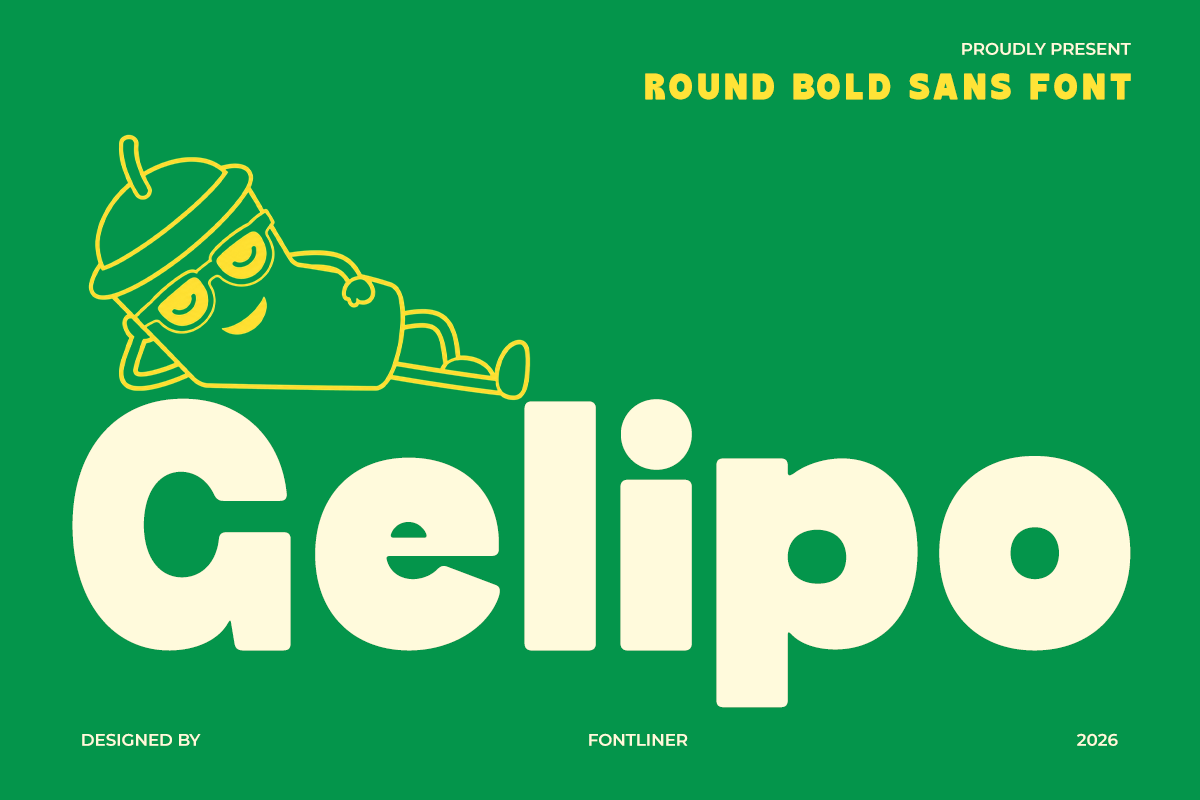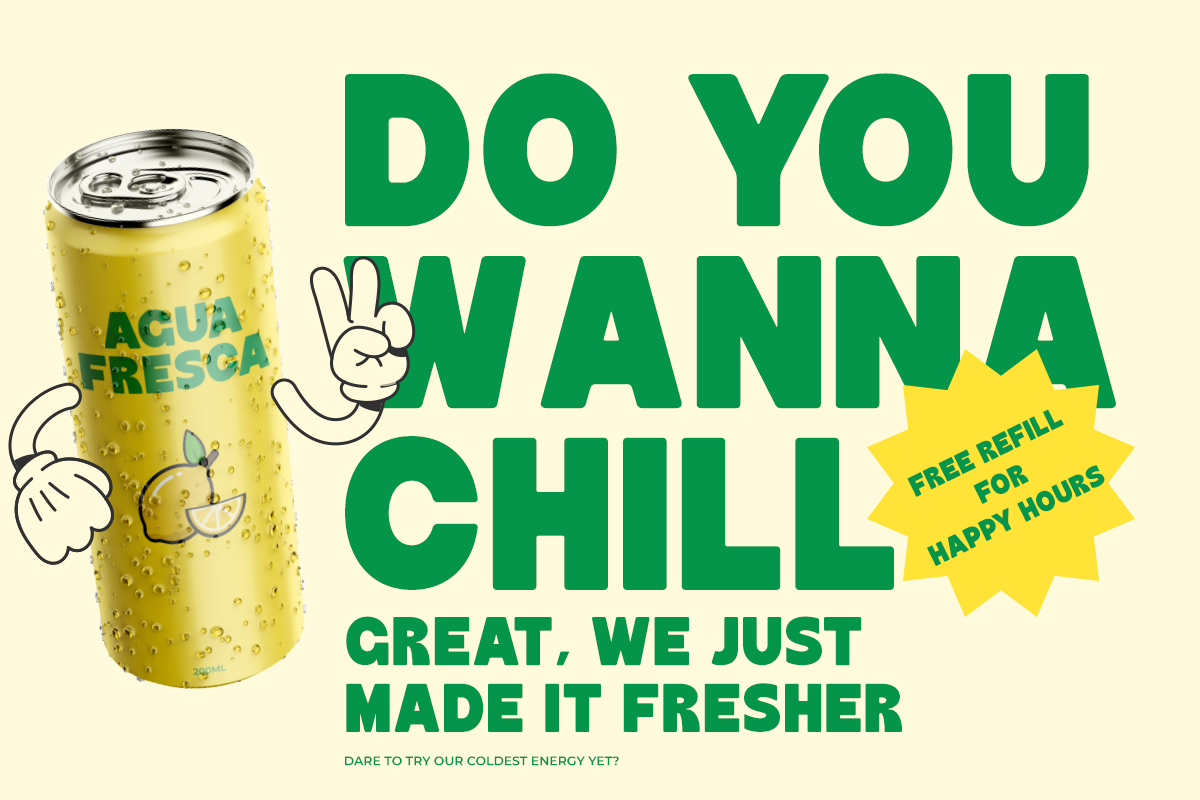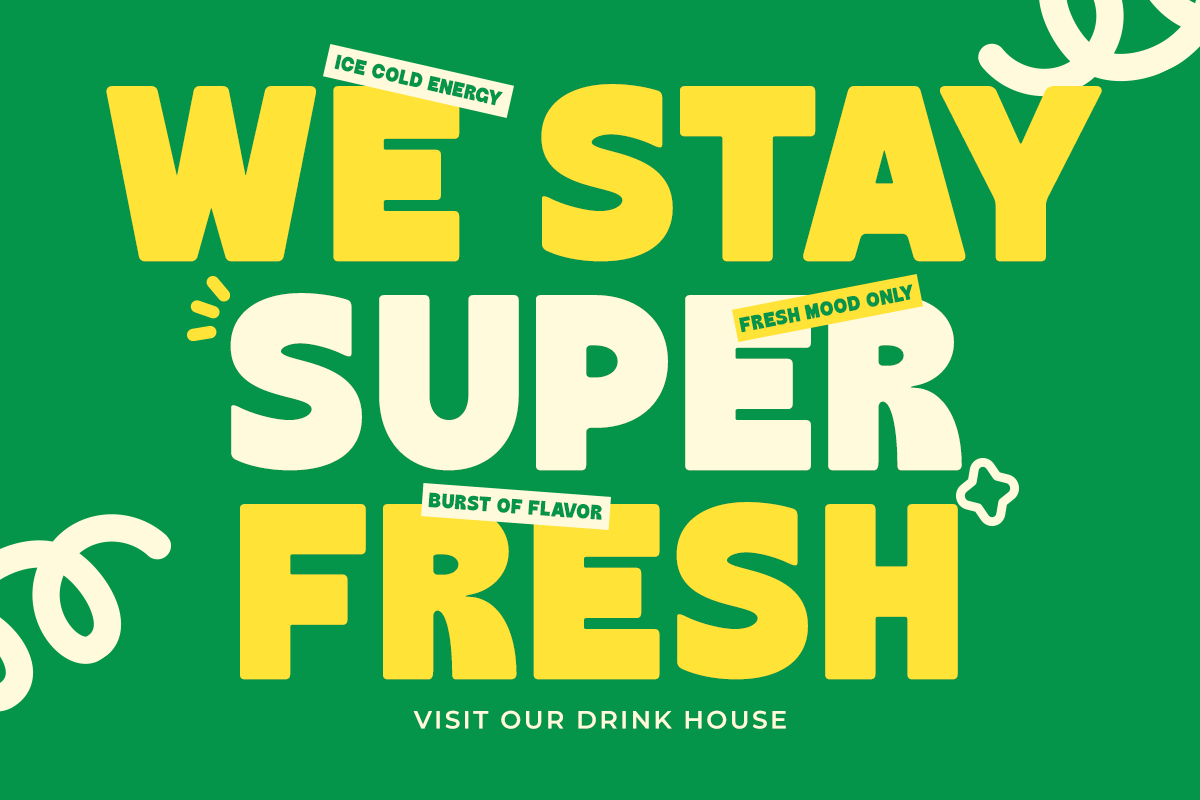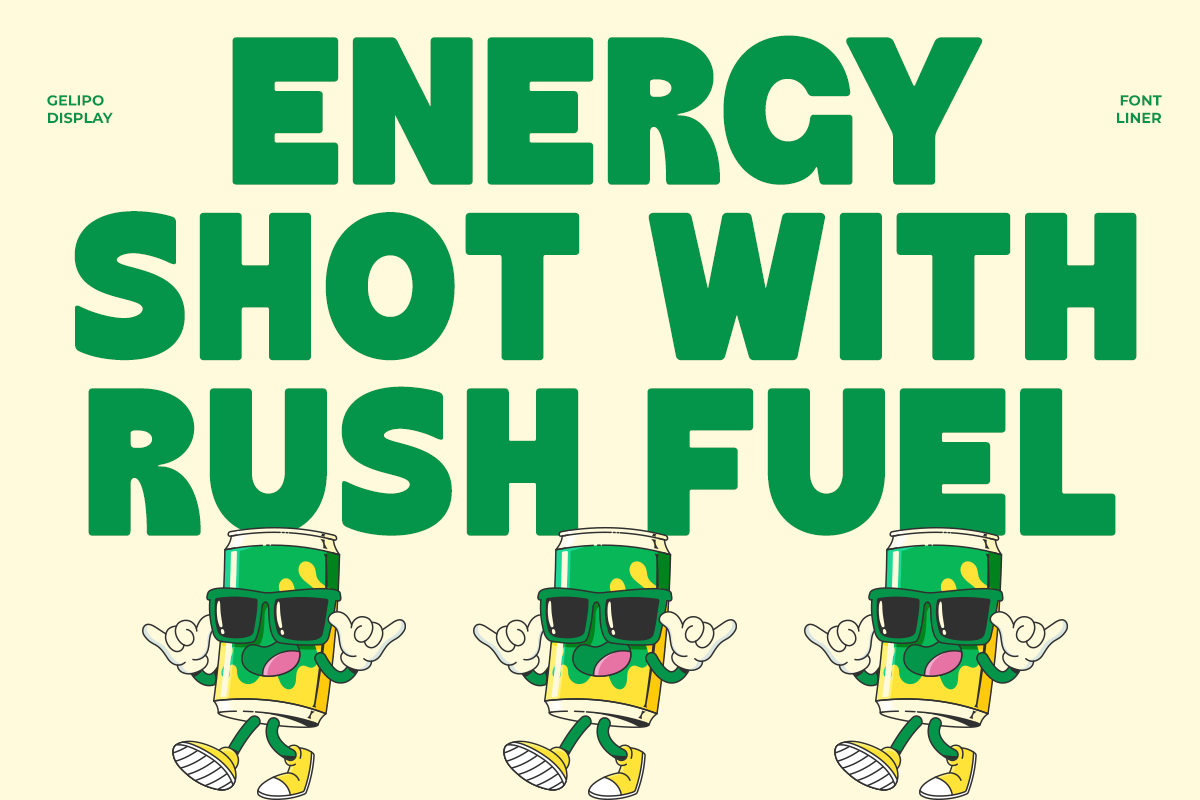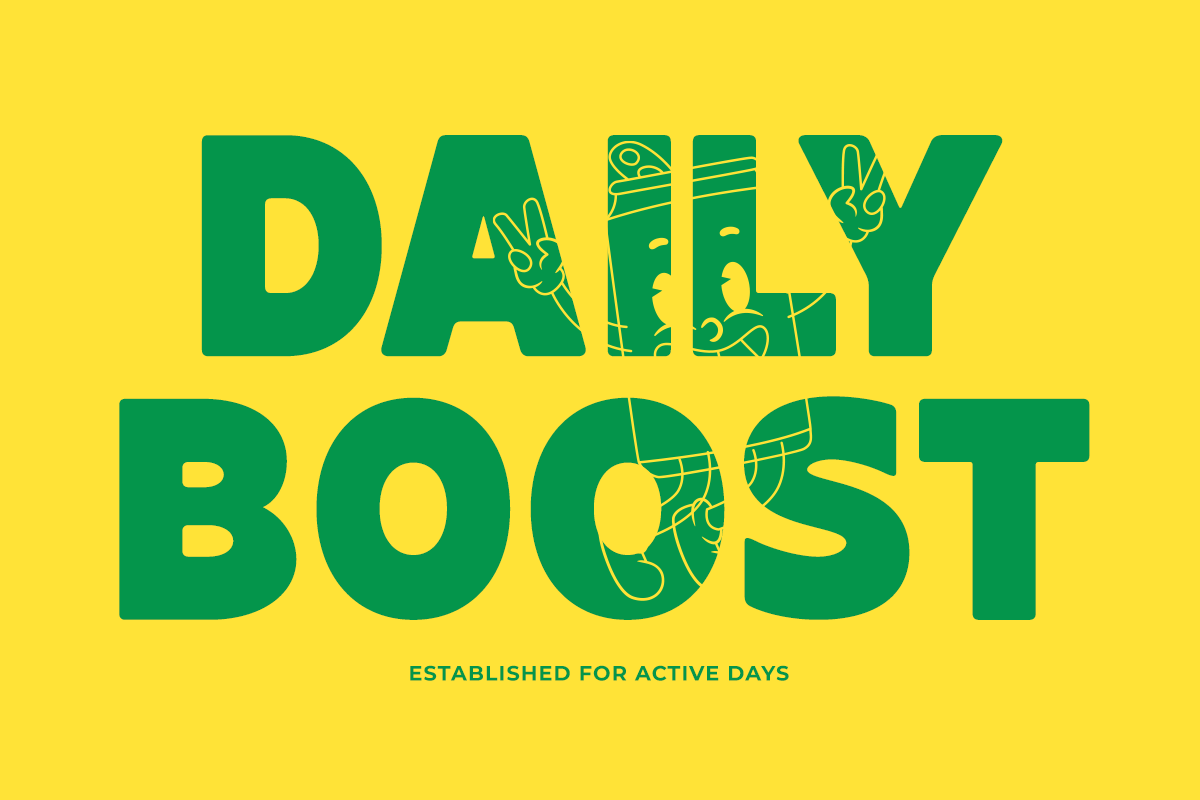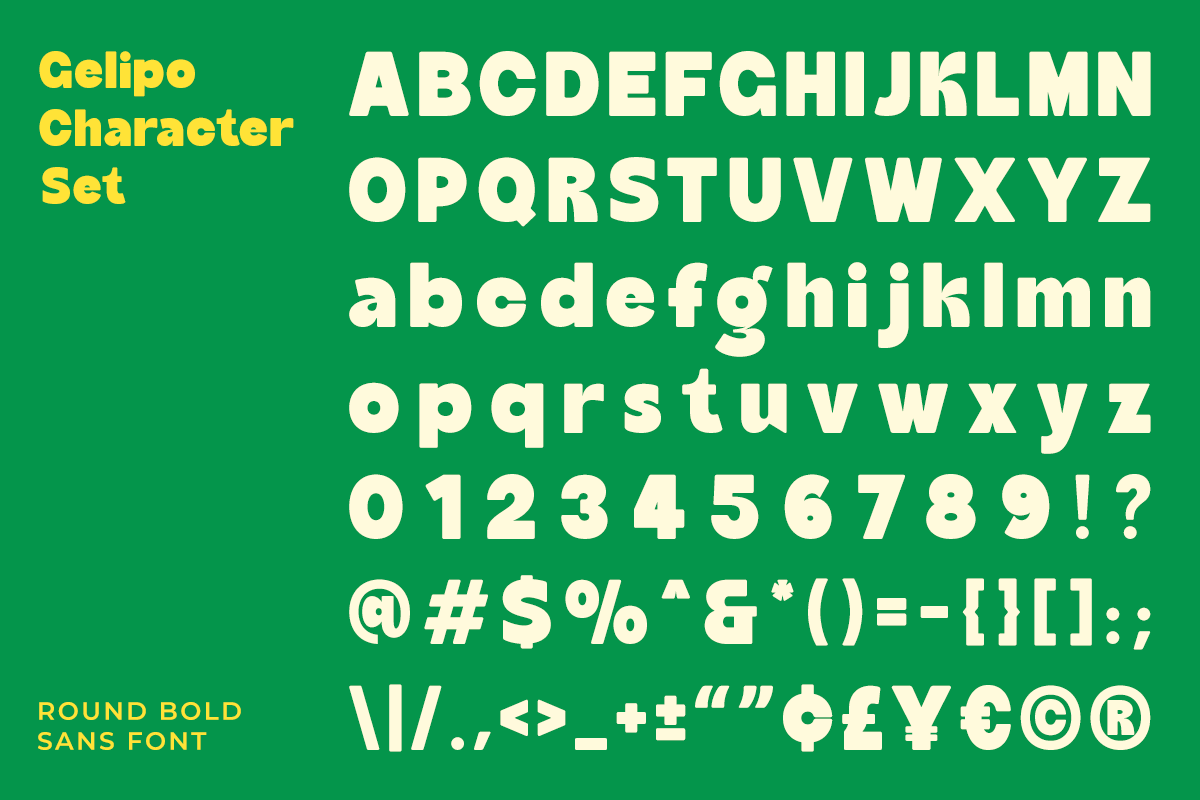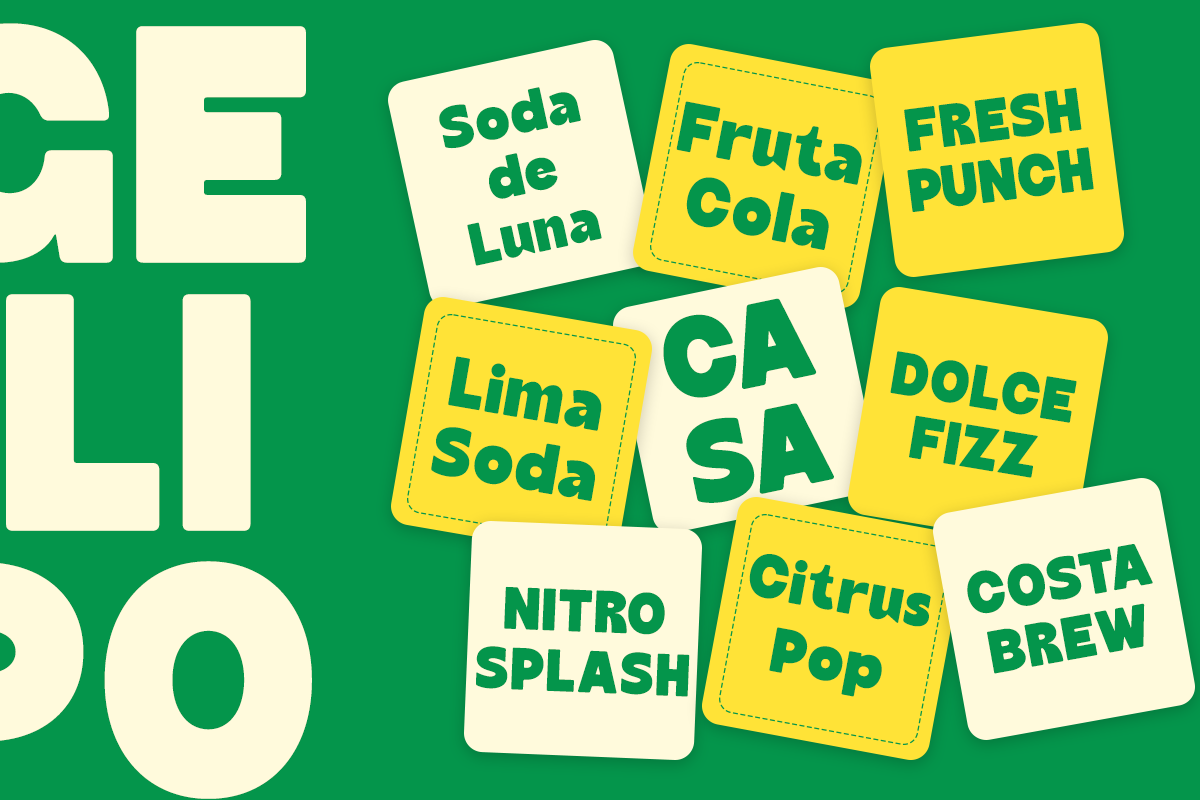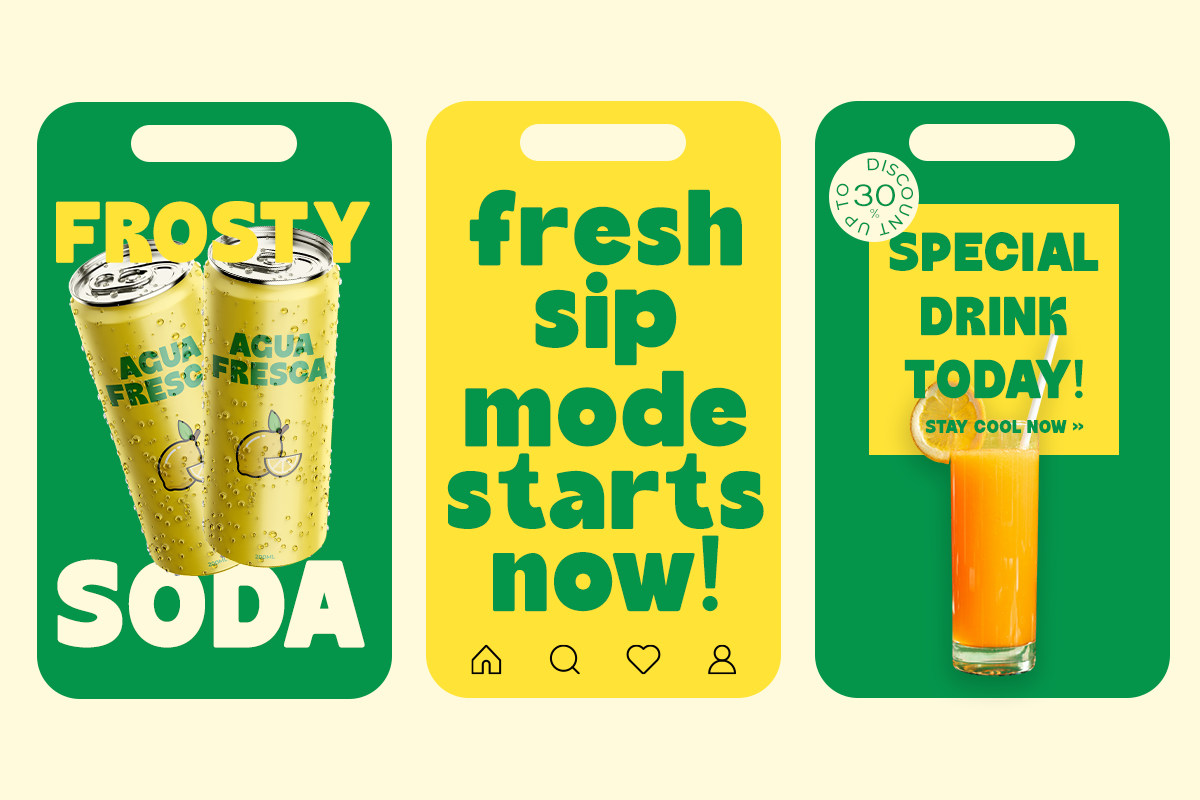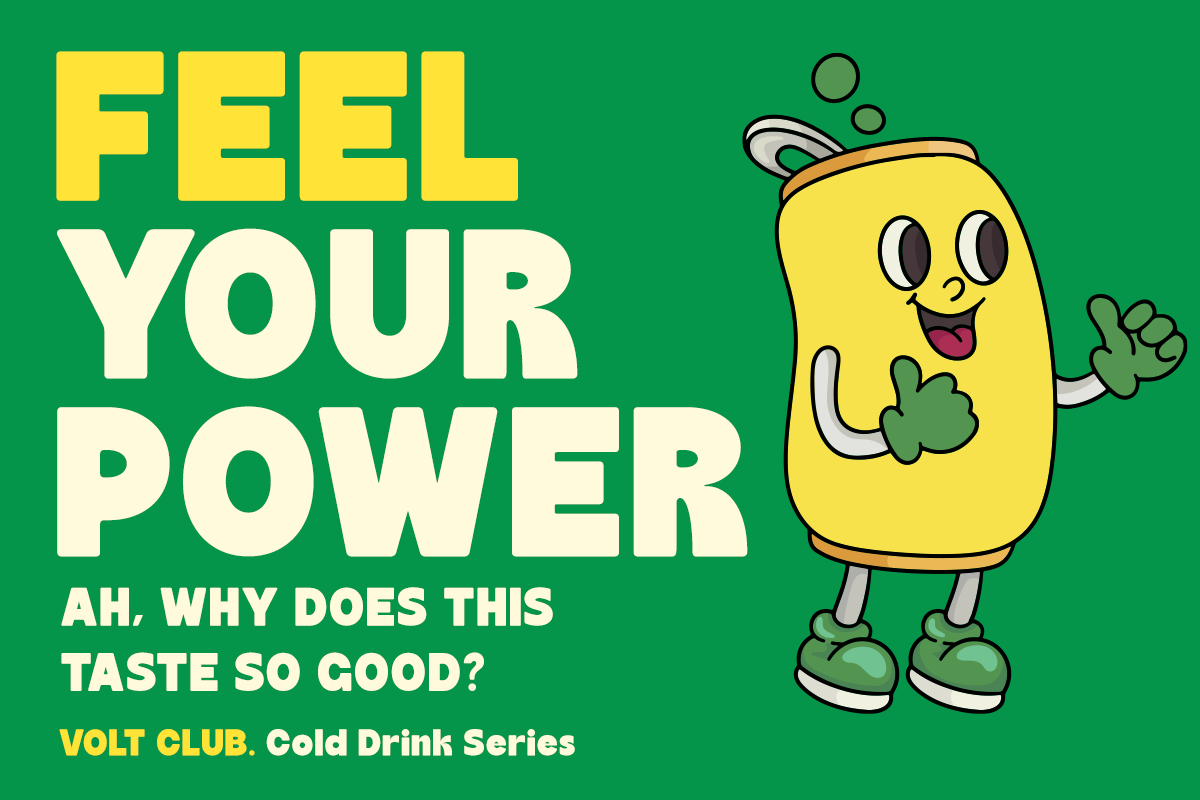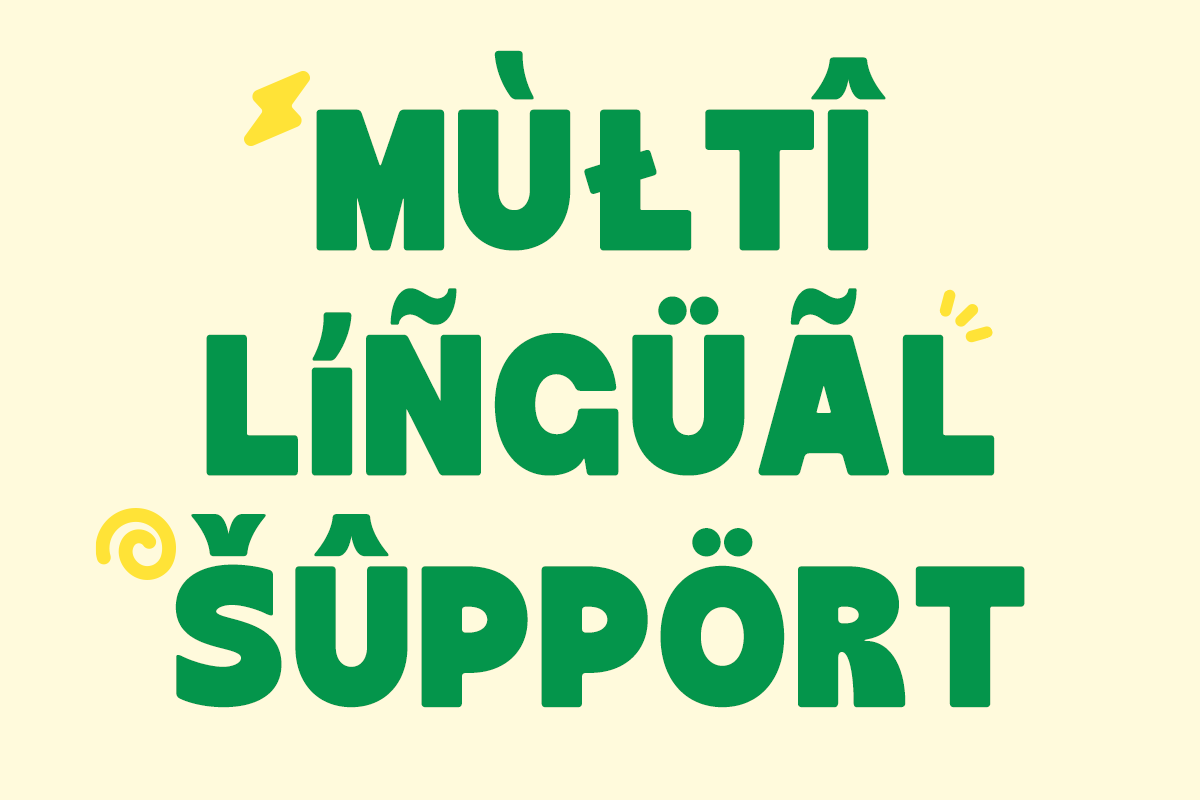
Round Bold Sans Font - Gelipo
Gelipo is a playful round bold sans font specially crafted for food and beverage branding projects that demand a fun, fresh, and memorable identity. With its chunky shapes, smooth rounded corners, and cheerful personality, this font instantly creates a delicious visual impression perfect for modern drink brands, snack packaging, cafés, dessert shops, and trendy street food businesses.
The bold rounded letterforms make Gelipo highly effective for beverage labels, boba tea branding, coffee shop menus, juice packaging, restaurant logos, food promotions, and social media advertising. Its friendly appearance helps brands feel more approachable, energetic, and visually appetizing while still maintaining strong readability across packaging and promotional materials.
Gelipo is perfect branding for milk drinks, soda products, burger shops, ice cream stores, candy packaging, food trucks, or colorful culinary campaigns, Gelipo delivers a bold and playful typography style that attracts attention instantly. This font is perfect for creators and business owners looking to build a strong food and beverage brand identity with a modern retro touch.
Regular and Italic Style
Number and Punctuation